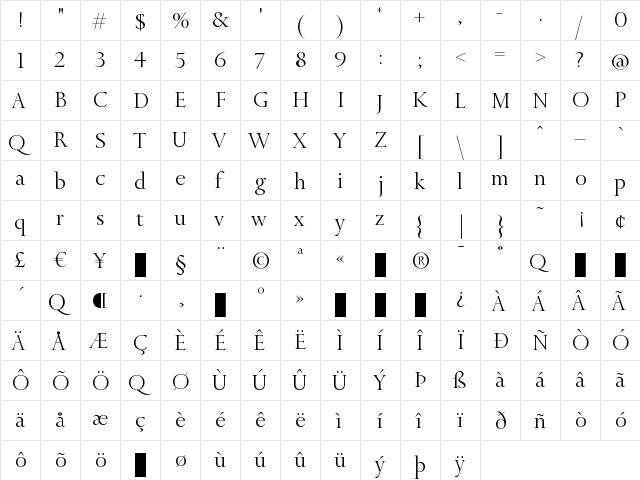
SterlingDisplay Roman
| Foundry | The Hoefler Type Foundry, Inc |
SterlingDisplay is built around its visual character rather than neutral utility — its distinctive forms are designed to make an impression at display sizes.
Font Pairing: Pair with a clean neutral sans-serif for body copy to let SterlingDisplay's character lead without overwhelming the composition.
Pro Tip: Treat SterlingDisplay as the centrepiece of your typographic hierarchy. One strong heading set in a decorative face can carry an entire layout.